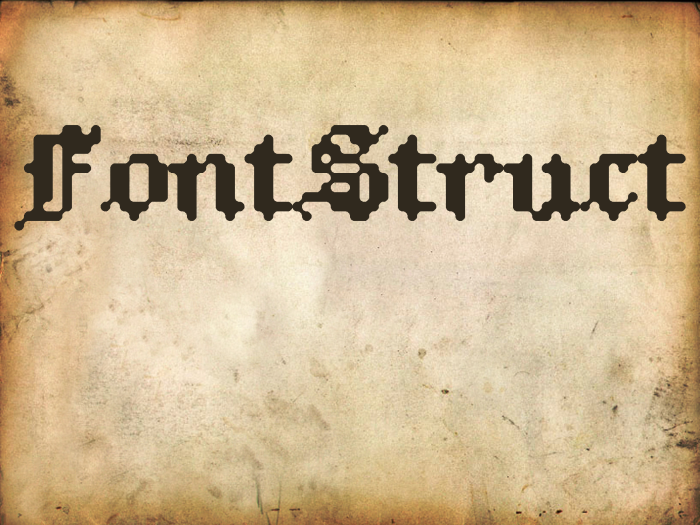
• Clone of Sierra Font 501 fon. Smooth version of another favorite computer RPG: Old English font from Betrayal In Antara, (C) 1997 Sierra On-Line. Sierra Resource File Tags: "8.fon" ; "501.fon" ; "4210.fon". Kerning is from "501.fon", which appears to be only found in Betrayal In Antara. Numerals (except 3 & 8) are from "4210.fon", found in Torin's Passage, (C) 1995 Sierra On-Line. Numerals 3 & 8 are designed by Goatmeal.
An Old English clone inspired by @elmoyenique's wonderful pixel-smoothing technique (see "zoftfrakt eYe/FS" font).  Results in a distressed / weathered / "ancient" look, mimicking old typefaces or lettering on old maps.  Gracias, compadre!